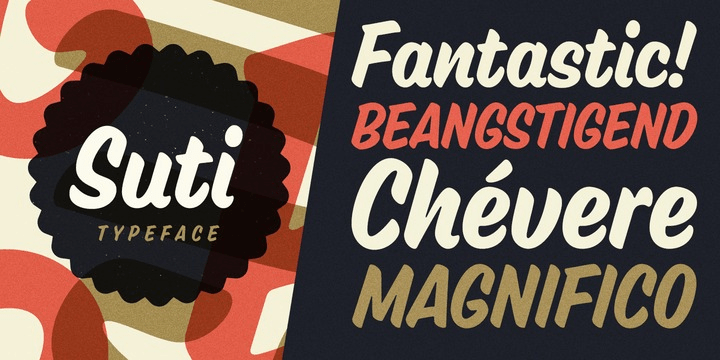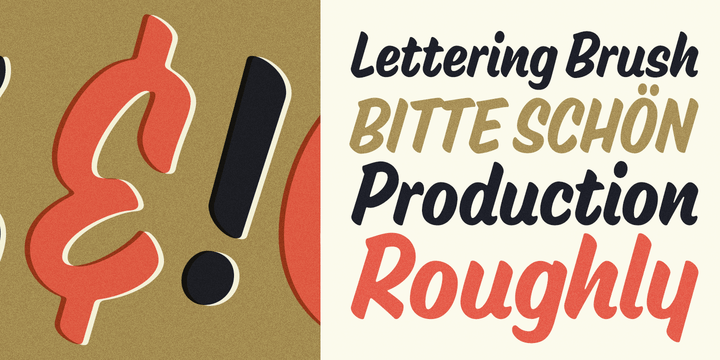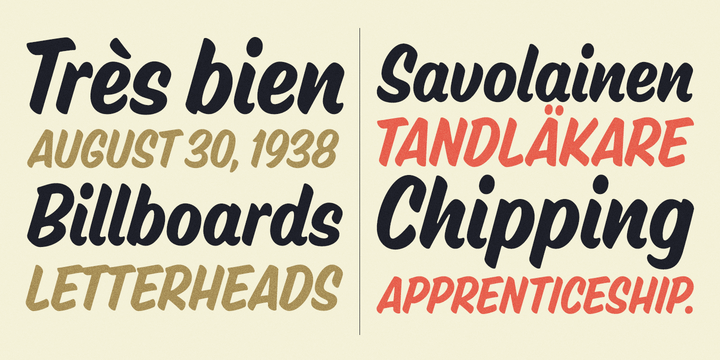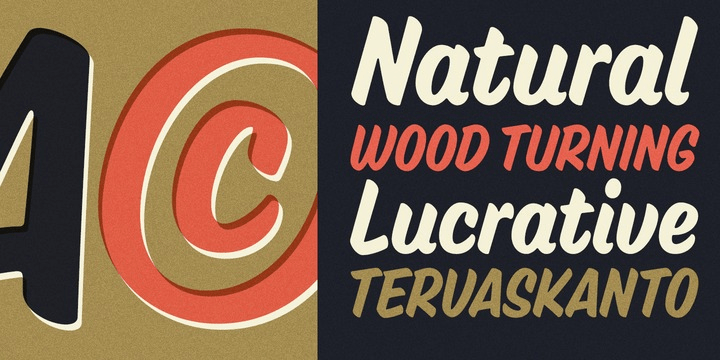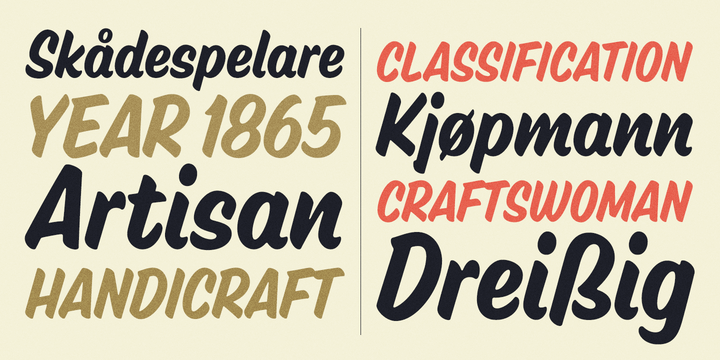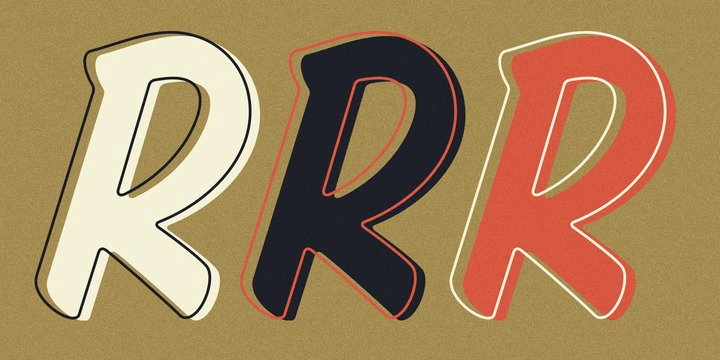
Suti
Font Family by Mika Melvas
When you need a clean font with handwritten feel your pick is Suti.
Suti by Mika Melvas
Suti
Font Style by Mika Melvas